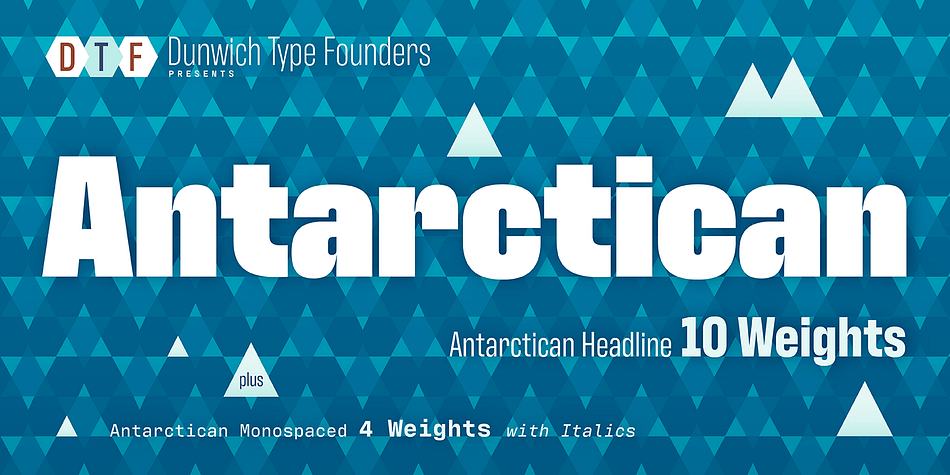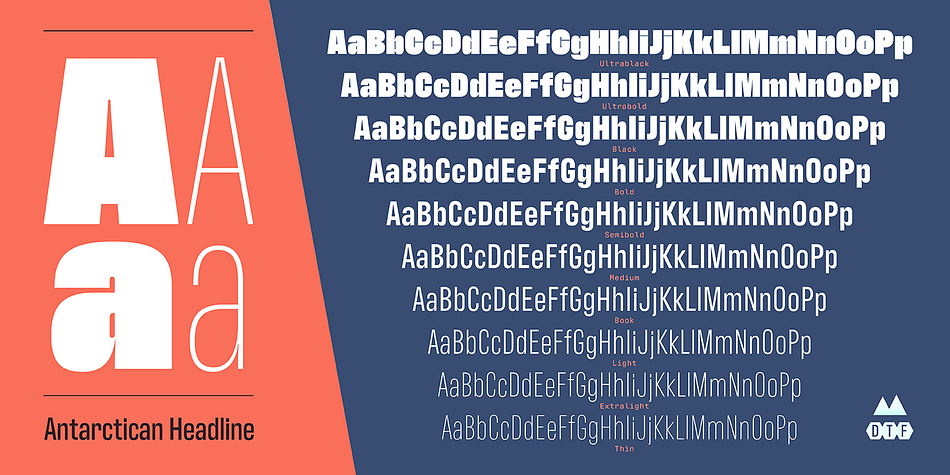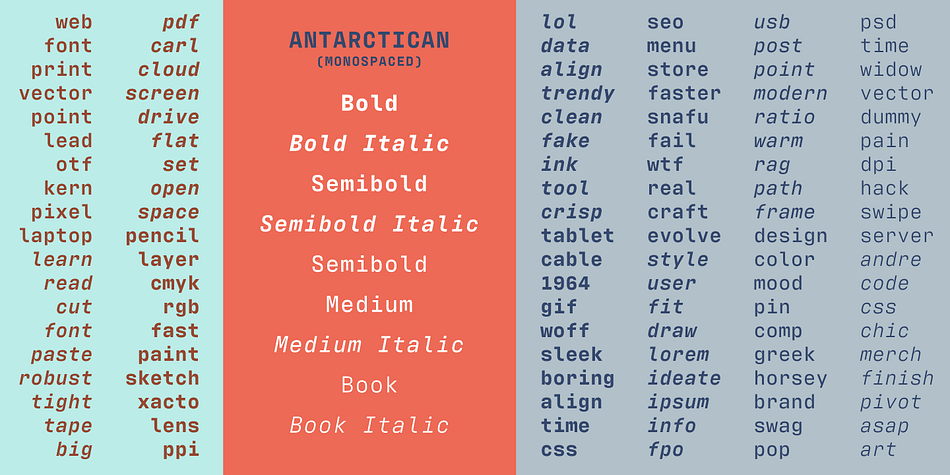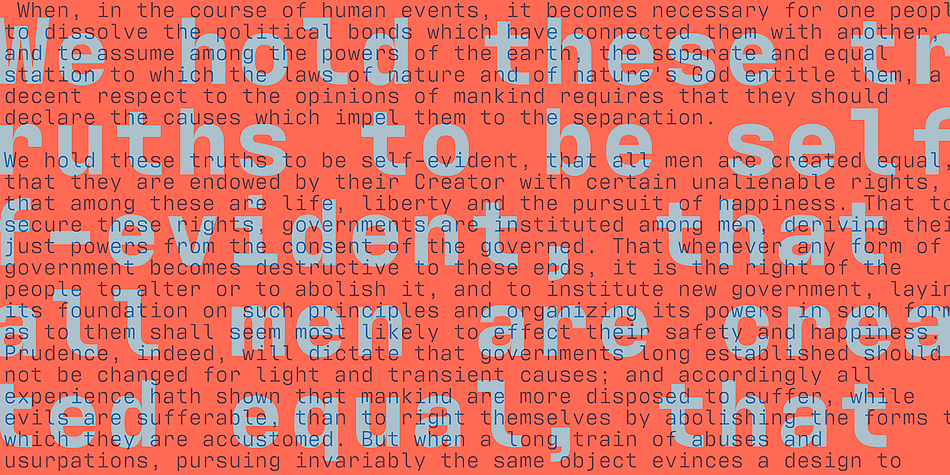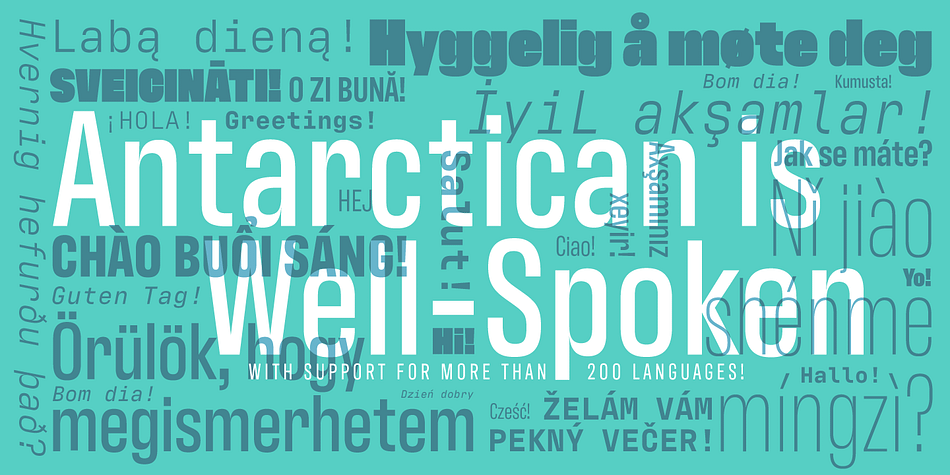
Designed by James Walker Puckett, Antarctican is a display sans font family. This typeface has eighteen styles and was published by Dunwich Type Founders.
Antarctican hybridizes ruler and compass geometry and American wood type. Asymmetric contrast, deep notches, and a tall x-height aid legibility at small sizes and demand attention when set large. Text styles are monospaced and headlines styles are proportionally spaced. This allows text to challenge convention while the headlines can be set in weights ranging from thin to ultrablack.
Support for over 200 languages allows Antarctican to set type for international readerships. OpenType niceties include small caps, lining, superior and inferior numbers, prebuilt fractions in monospaced fonts and arbitrary fractions in headline fonts, and f ligatures.